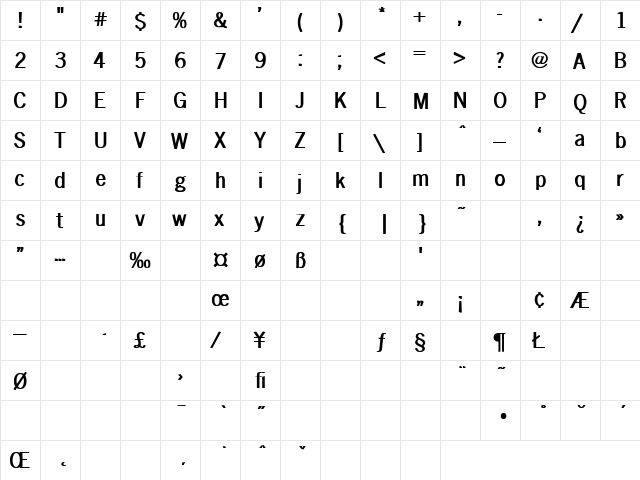
Breakdown 6 Bold Font Preview
Breakdown 6 Bold
Design Context for Breakdown 6 Typeface
Breakdown 6 is a composed and adaptable typeface that performs quietly and consistently across a wide range of design contexts. Its bold stroke weight gives it real presence on the page.